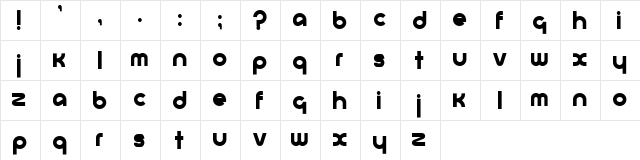
Bayer Medium
Design Context for Bayer Typeface
Bayer is a composed and adaptable typeface that performs quietly and consistently across a wide range of design contexts.